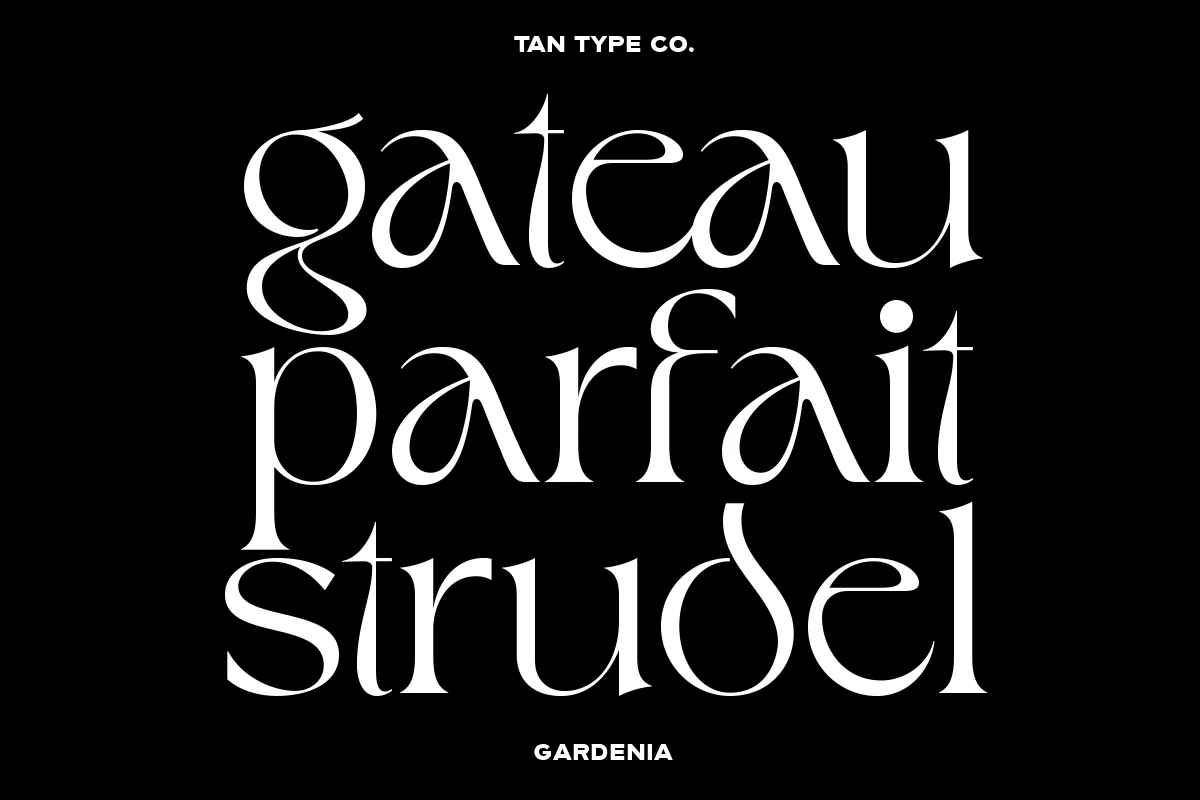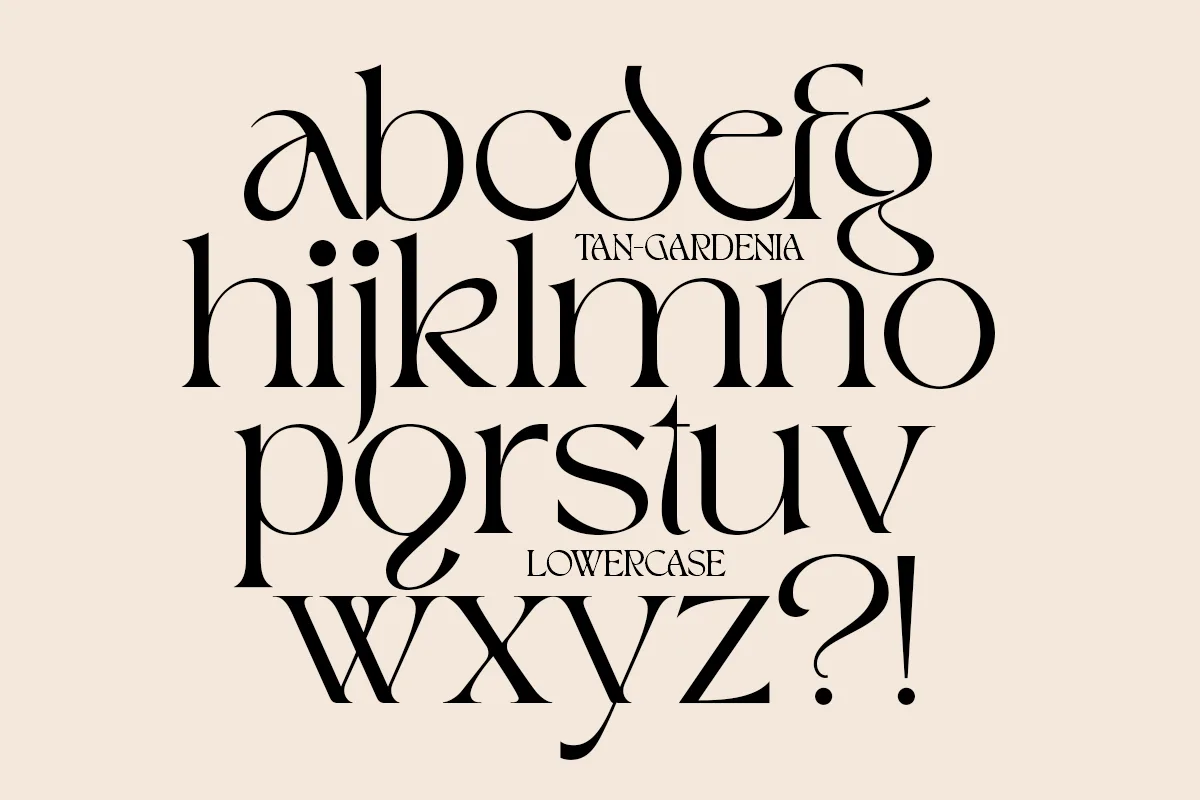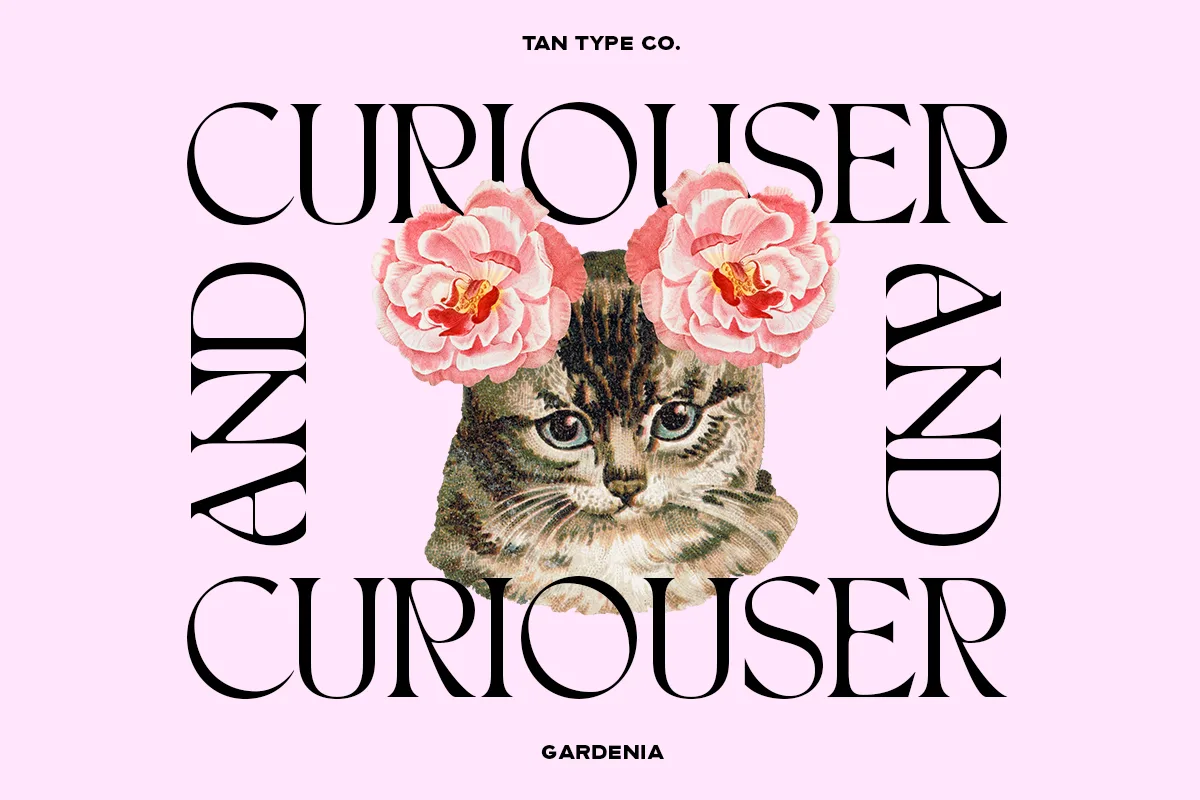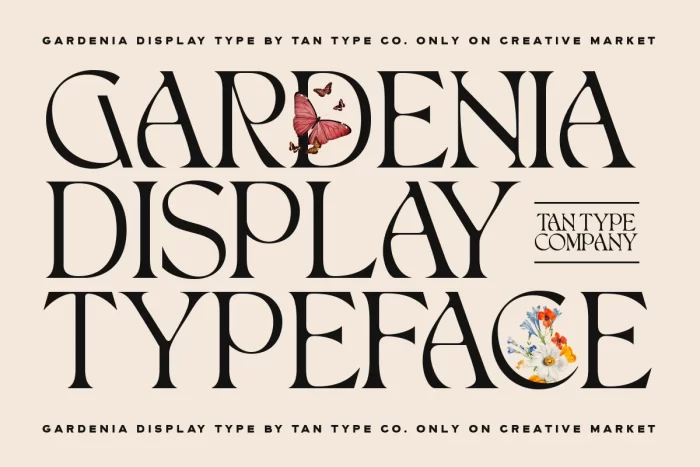
TAN-GARDENIA is a display typeface based on classic serif with a contemporary twist. It’s fun but still maintains the elegant shapes making it perfect for branding and other of your design needs. This font is perfect for branding, logos, social media, prints, stickers, shirts, svg files and more!
- Foundry: TanType
- Character Set: Multilingual Latin-based (uppercase/lowercase, numerals, punctuation, basic ligatures)